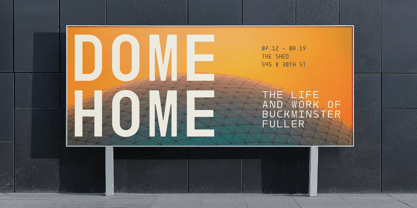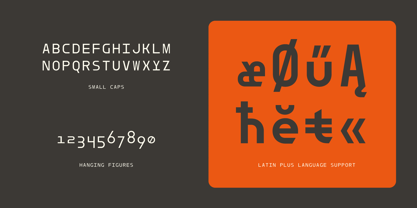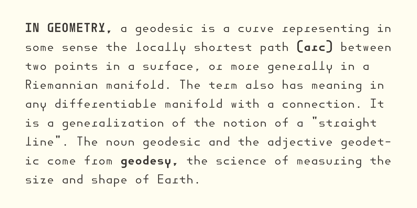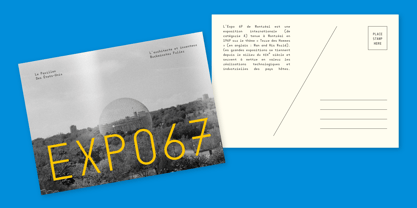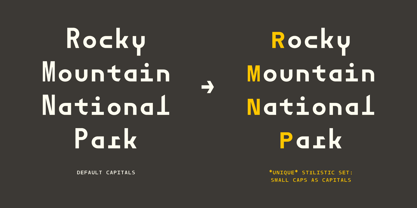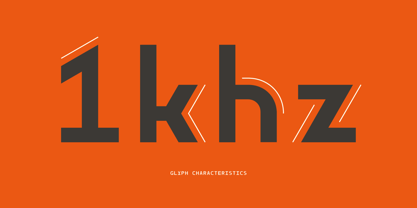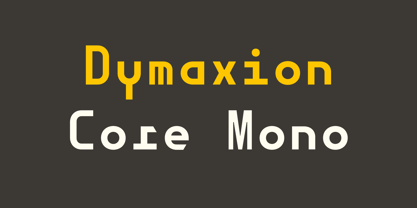
Dymaxion Core Mono
by Typeseth Studio
The Dymaxion Core Mono Font Family was designed by Seth Haller and published by Typeseth Studio. Dymaxion Core Mono contains 4 styles and family package options.
Dymaxion Core Mono is an original monospaced typeface that originated from a larger self-initiated project, named Dymaxion after the coined portmanteau by R. Buckminster Fuller. This typeface conveys a raw and engineered aesthetic, while also evoking a strong sense of nostalgia, drawing from historical documents related to the inventor and architect. The primary inspiration for the typeface stems from the dymaxion concept, which emphasizes "maximum gain of advantage from minimal energy input." My initial goal was to explore whether a single variable font could mechanically stretch, compress, and more, while remaining as simple and efficient as possible, all while maintaining a unique character. Similar to how Trim Tab sought inspiration from nature, the relationship between the uppercase and lowercase letters is based on the golden ratio. The small caps were designed to fit between the uppercase and lowercase letters, allowing users to choose more conventional proportions. These small caps can be accessed in design program dropdown menus as the “Small Caps as Capitals” stylistic set.
Typeseth studio is the type design practice of Seth Haller. With a few years in the game, he has been digitizing and exploring letters from art and design history that are often over-looked for their ubiquitous nature. Sometimes he explores experimental display fonts that feel more puzzle-like and pushes letterforms to the edge of legibility to get a sense not just for their typographic, but also graphic, possibilities. Based in colorful Colorado, the practice is inspired by the type community made up of folks in the front range design scene, as well as vernacular letterforms found in the “wild.” Seth became interested in letters from a very young age when he noticed the beauty of his grandmother's handwriting. Since then, he has been nose down, exploring and connecting distinctive letterforms to individuals and brands for communications that uniquely belong to the people that use them and the respective worlds they serve.